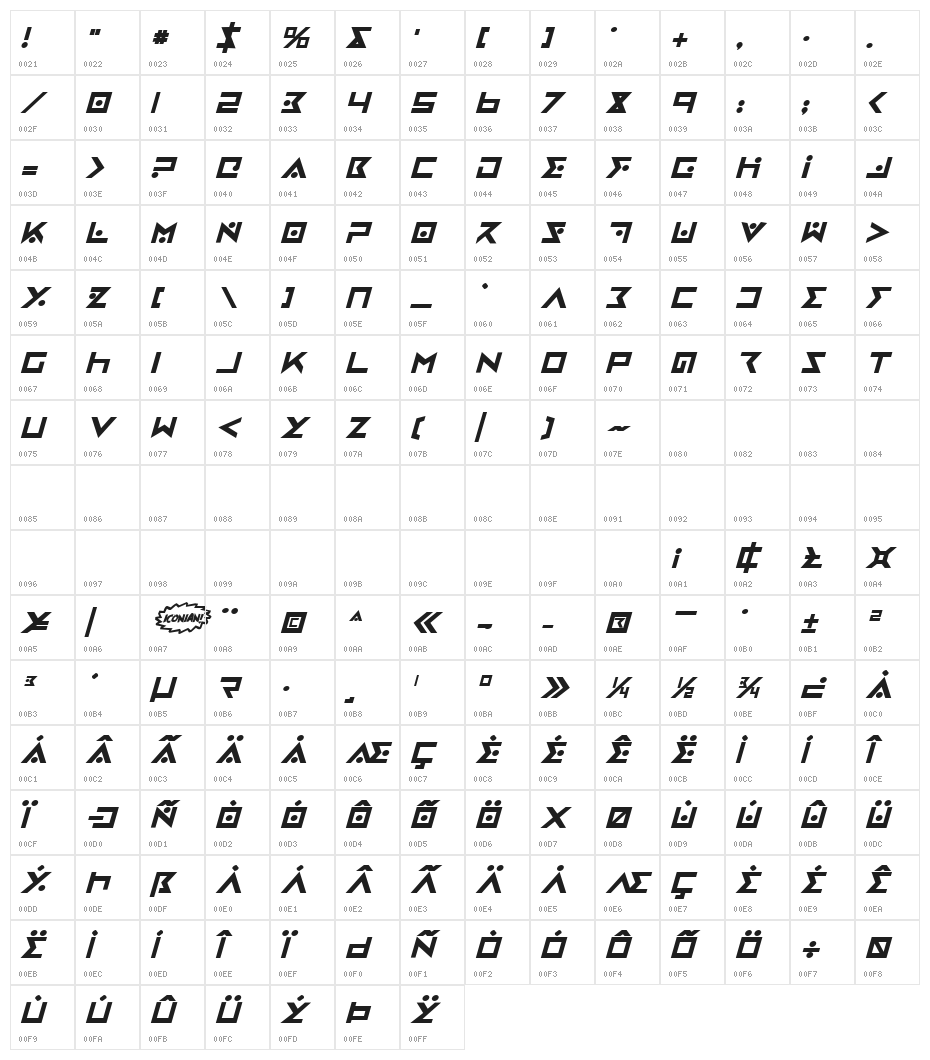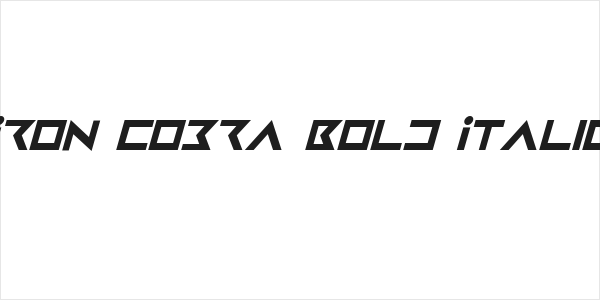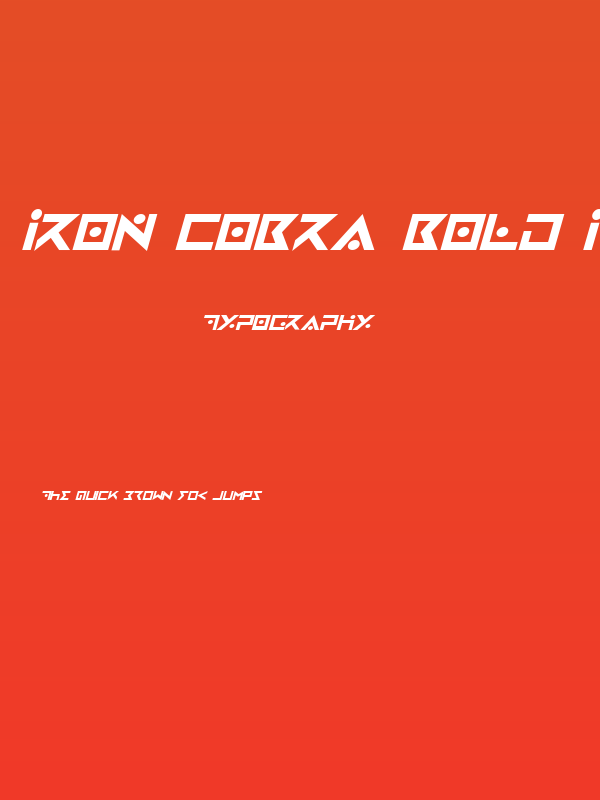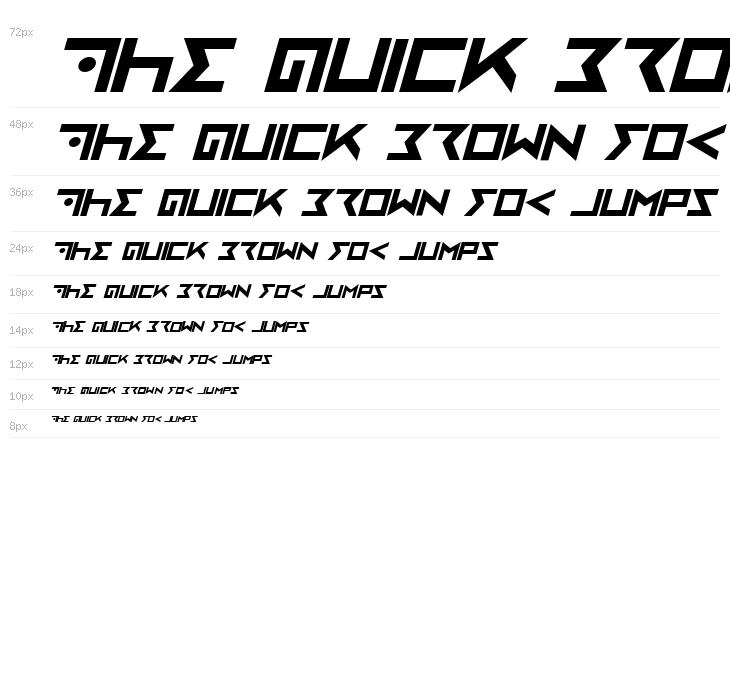
Iron Cobra Bold Italic Font
Iron Cobra Bold Italic Description
This font features a bold and italicized style with a futuristic and angular design. The characters are constructed with sharp edges and geometric shapes, giving it a distinct and modern appearance. The uppercase and lowercase letters maintain a consistent style, with unique embellishments such as dots and slashes that add to its decorative nature. The numbers and special characters follow the same design principles, ensuring uniformity across the typeface. This font's boldness and angularity make it stand out, suitable for projects that require a strong visual impact.
| Overall Style | Futuristic, Modern, Decorative |
| Proposed Projects | Ideal for sci-fi themed projects, video game titles, posters, and branding that requires a modern and edgy look. |